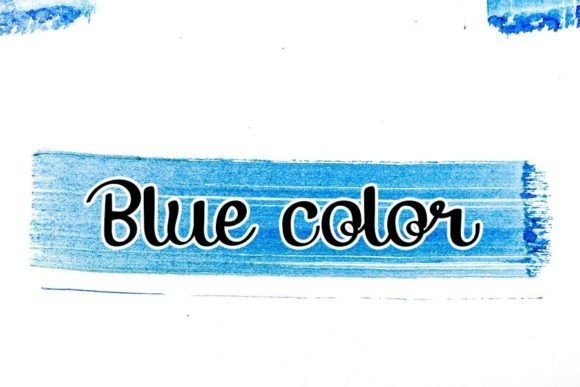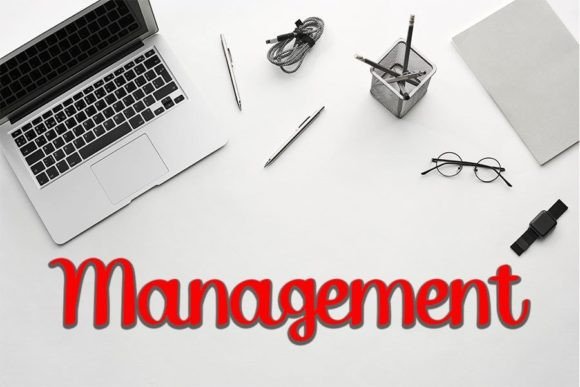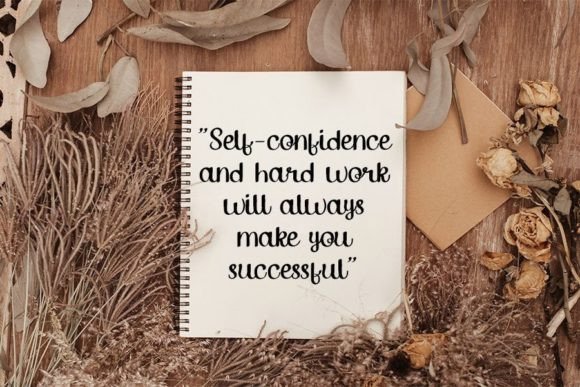
About Baigon Font
“Baigon” is a friendly handwritten font that has been thoughtfully crafted to become a cherished favorite. It effortlessly blends classy calligraphic influences with a contemporary and fresh feel, making it a versatile choice for various creative projects. By incorporating “Baigon” into your designs, you can elevate them and make them outstanding with its unique charm.
The calligraphic influences in “Baigon” contribute to its elegant and refined appearance. The carefully designed letterforms reflect the artistry of traditional calligraphy, bringing a sense of grace and sophistication to the font. This makes it an excellent option for projects that require a touch of timeless and classy aesthetics.
Simultaneously, the friendly and contemporary feel of “Baigon” ensures that it remains relevant and approachable. The font seamlessly adapts to modern design sensibilities, making it suitable for a wide range of applications in today’s creative landscape.
Whether you’re working on branding, invitations, social media graphics, or any other design project, “Baigon” introduces a delightful and distinctive quality to your typography. It adds a personal touch to your creations, allowing them to stand out with a friendly and approachable vibe.
In branding, “Baigon” becomes a key element in establishing a memorable and personable brand identity. Its unique fusion of classic and contemporary elements sets your brand apart, creating a positive and lasting impression on your audience.
For invitations, the font adds a touch of warmth and charm. Whether used for wedding invitations, party announcements, or any event where a friendly and elegant touch is desired, “Baigon” enhances the overall invitation design.
In social media graphics and marketing materials, the font brings a playful yet sophisticated vibe. Its friendly demeanor makes it suitable for conveying messages in a visually appealing and approachable manner.
Overall, “Baigon” is a font that invites you to embrace its friendly and versatile nature. Its ability to balance traditional calligraphic influences with a contemporary feel makes it an excellent choice for designers seeking a font that adds a touch of timeless elegance and modern charm to their projects.